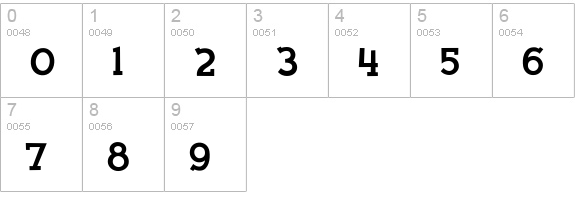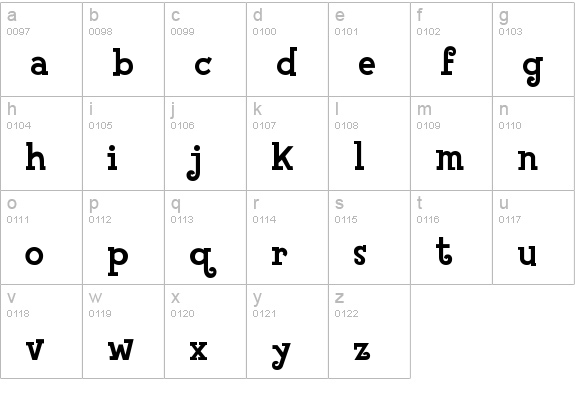
Fink Heavy is a heavy, high-impact variant in the Fink typeface family \xE2\x80\x94 well suited to high-impact headlines, posters, and display advertising.
Fink Heavy is a bold and impactful typeface that commands attention with its strong and sturdy letterforms. This versatile font is perfect for headlines, logos, posters, and other designs where you want to make a statement. The thick strokes and squared-off edges give Fink Heavy a modern and industrial feel, making it ideal for projects that require a contemporary touch.